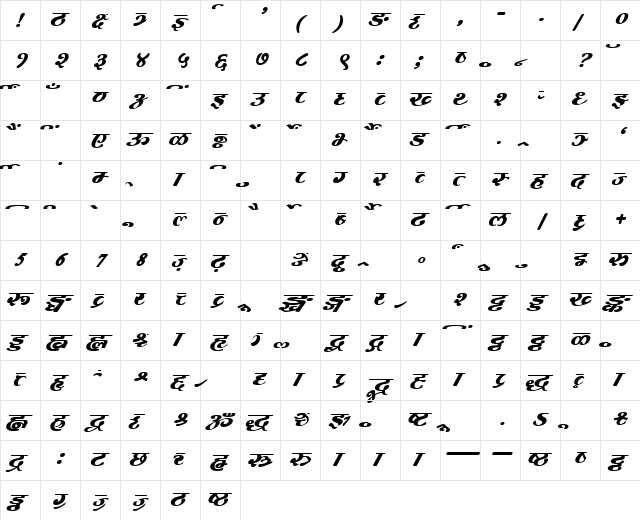
AkrutiDevKailas BoldItalic Font Preview
Design Context for AkrutiDevKailas Typeface
AkrutiDevKailas takes a measured approach to typography — its balanced proportions and neutral character make it a reliable workhorse for both digital and print work. Its italic angle brings a sense of urgency and motion to the letterforms. Its bold stroke weight gives it real presence on the page.
Pro Tip: Try AkrutiDevKailas for annotation and caption copy alongside an upright companion — the contrast in angle creates a dynamic but ordered typographic system.